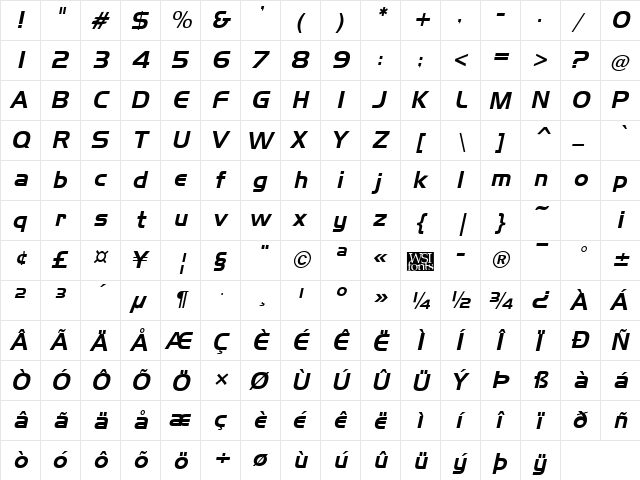
Slicker kursiv
Design Context for Slicker Typeface
Slicker offers clean, dependable letterforms without strong stylistic allegiance, making it a practical choice for designers who need flexibility. The slanted form adds forward momentum and visual energy.